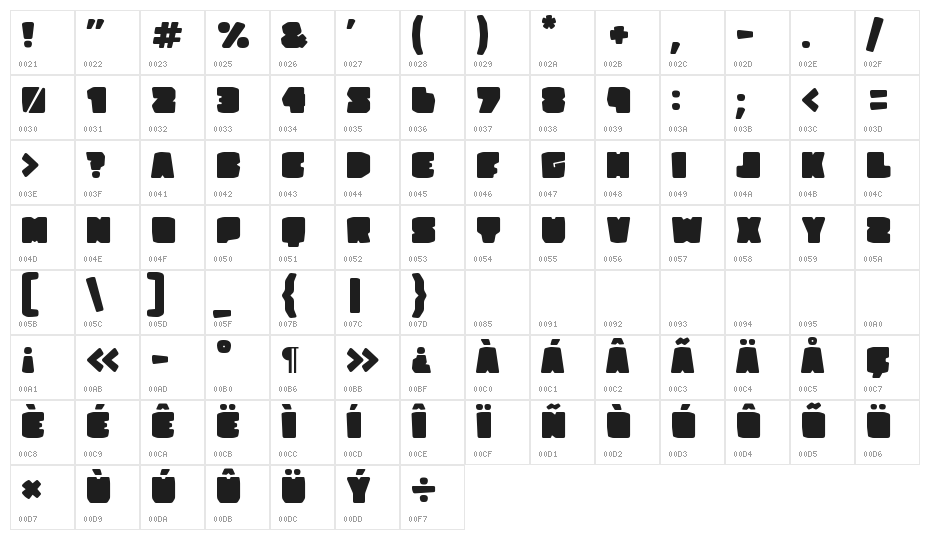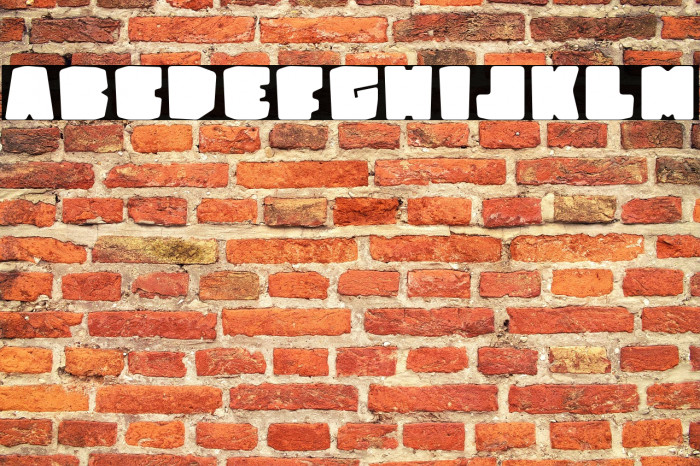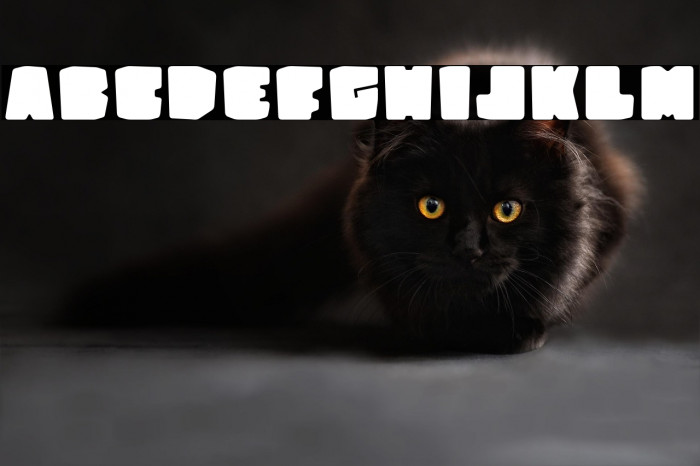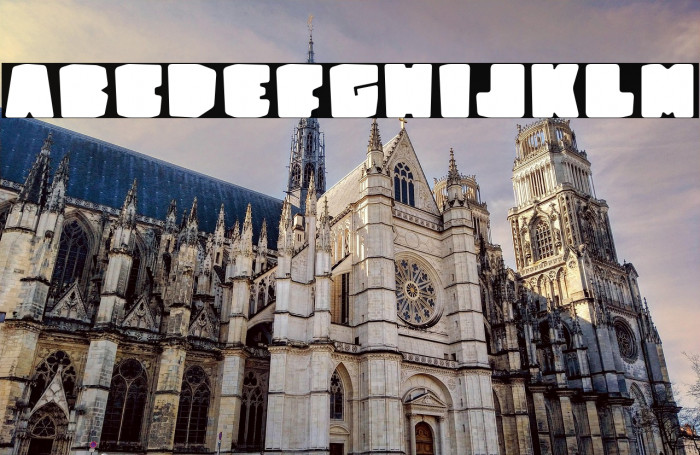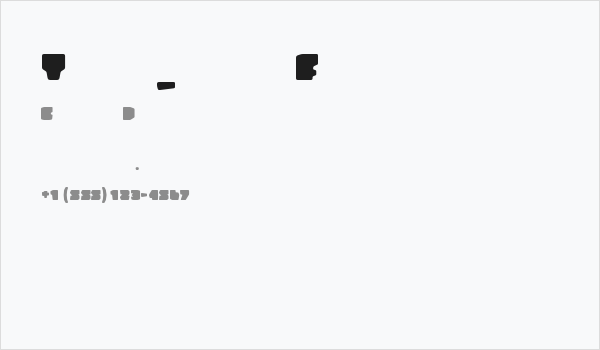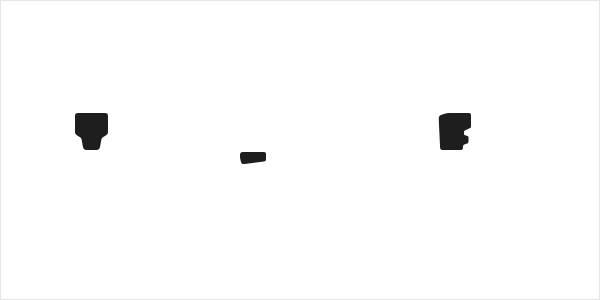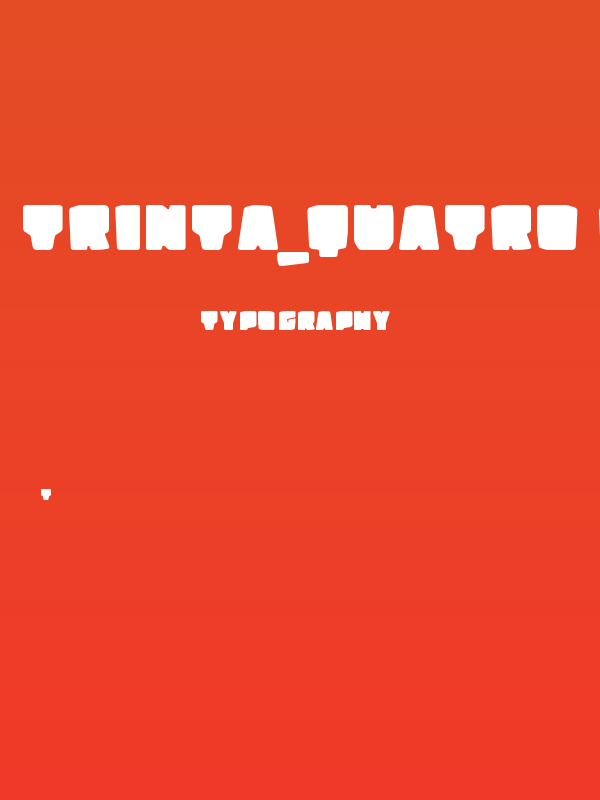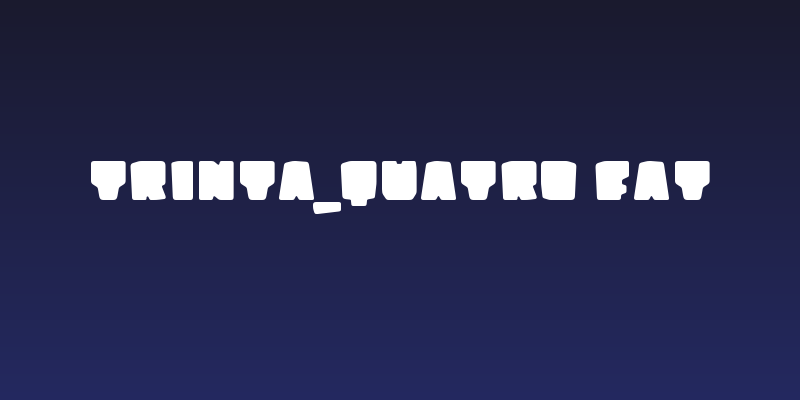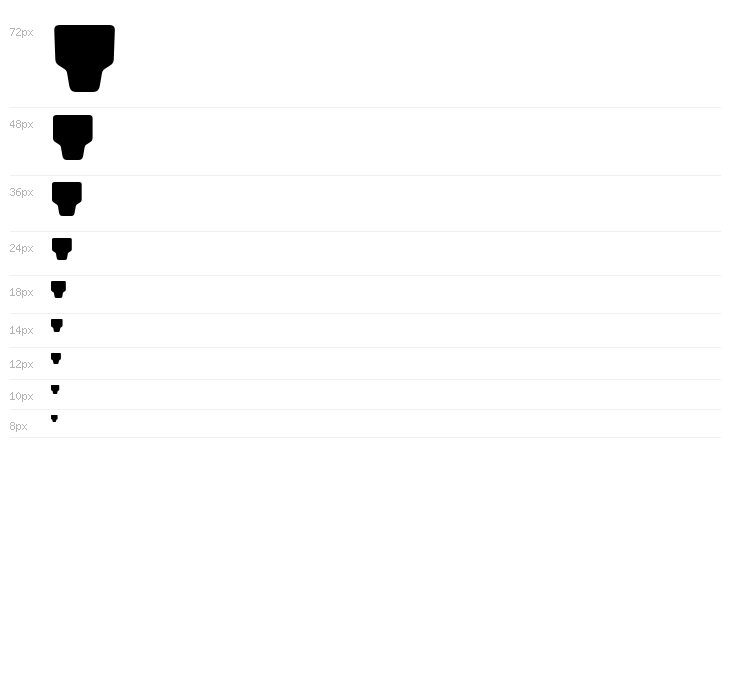
Trinta_quatro Fat Font
Trinta_quatro Fat Description
This font features a bold and chunky design with a playful and dynamic appearance. The characters are heavily weighted, giving them a strong presence on the page. The edges are rounded, adding a friendly and approachable feel. The style is reminiscent of retro or vintage designs, making it suitable for projects that aim to capture a nostalgic or whimsical vibe. The font's thick strokes and uniform weight make it highly legible, even at smaller sizes, while the unique shapes of the letters add a distinctive character.
| Proposed Projects | Ideal for posters, logos, children's books, and any design needing a fun, eye-catching typeface. |